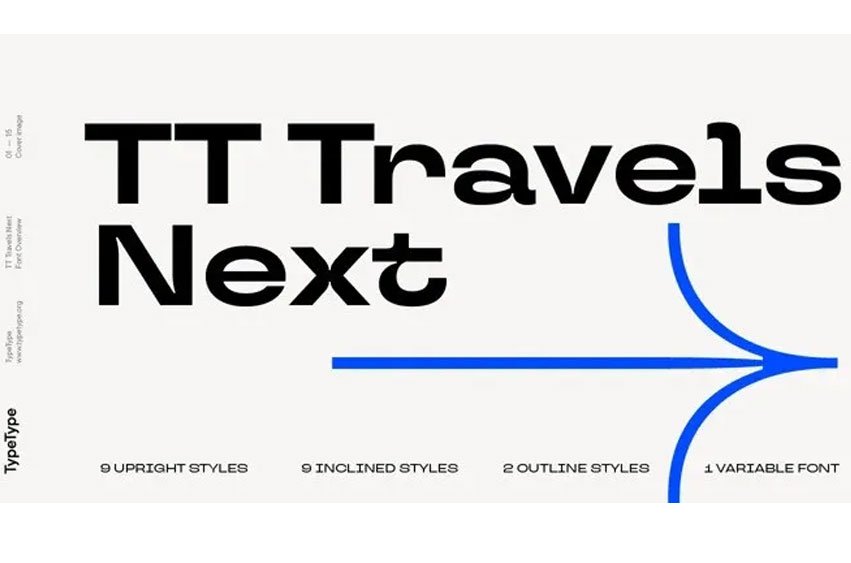
TT Travels Next Font The idea to design an alternate variation within the TT Travels font family came to fruition during Moscow’s “Mail.ru Design Conf x Dribbble Meetup”, held August 2020. Conference branding used the TT Travels font family; we realized its beauty but could have enhanced it even further with more daring and event-themed graphics displayed through it. This led to designing “TT Travels Next.”
TT Travels Next font family comprises 21 fonts, featuring 9 upright styles and nine inclined styles as well as two outline fonts and one variable font with two variable axes (width and slant). Please click here for more information regarding all typographic characteristic.